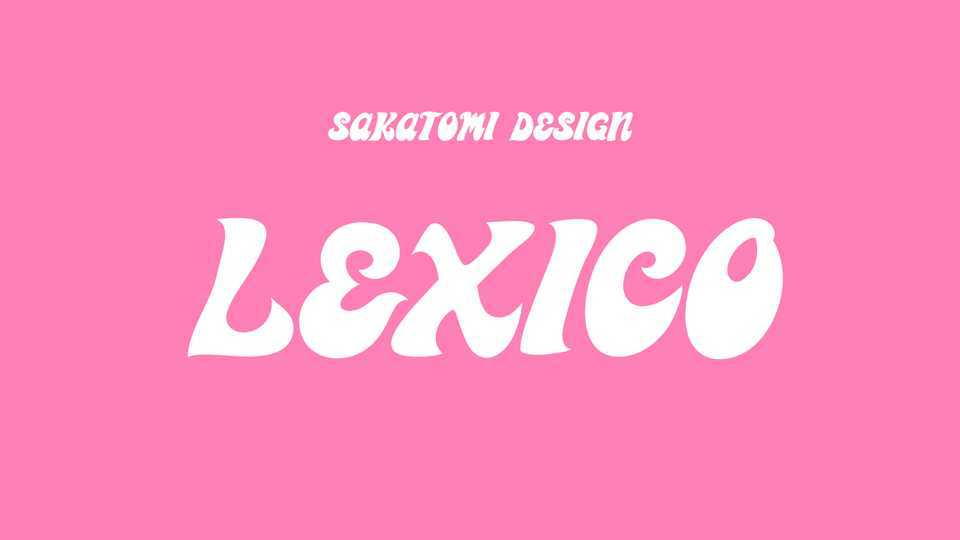
Download Lexico font, a groovy and cheerful handwritten typeface. With its quirky and playful look, Lexico font is perfect for posters, badges, book covers, t-shirt designs, packaging and much more.
Designer: SAKATOMI Design